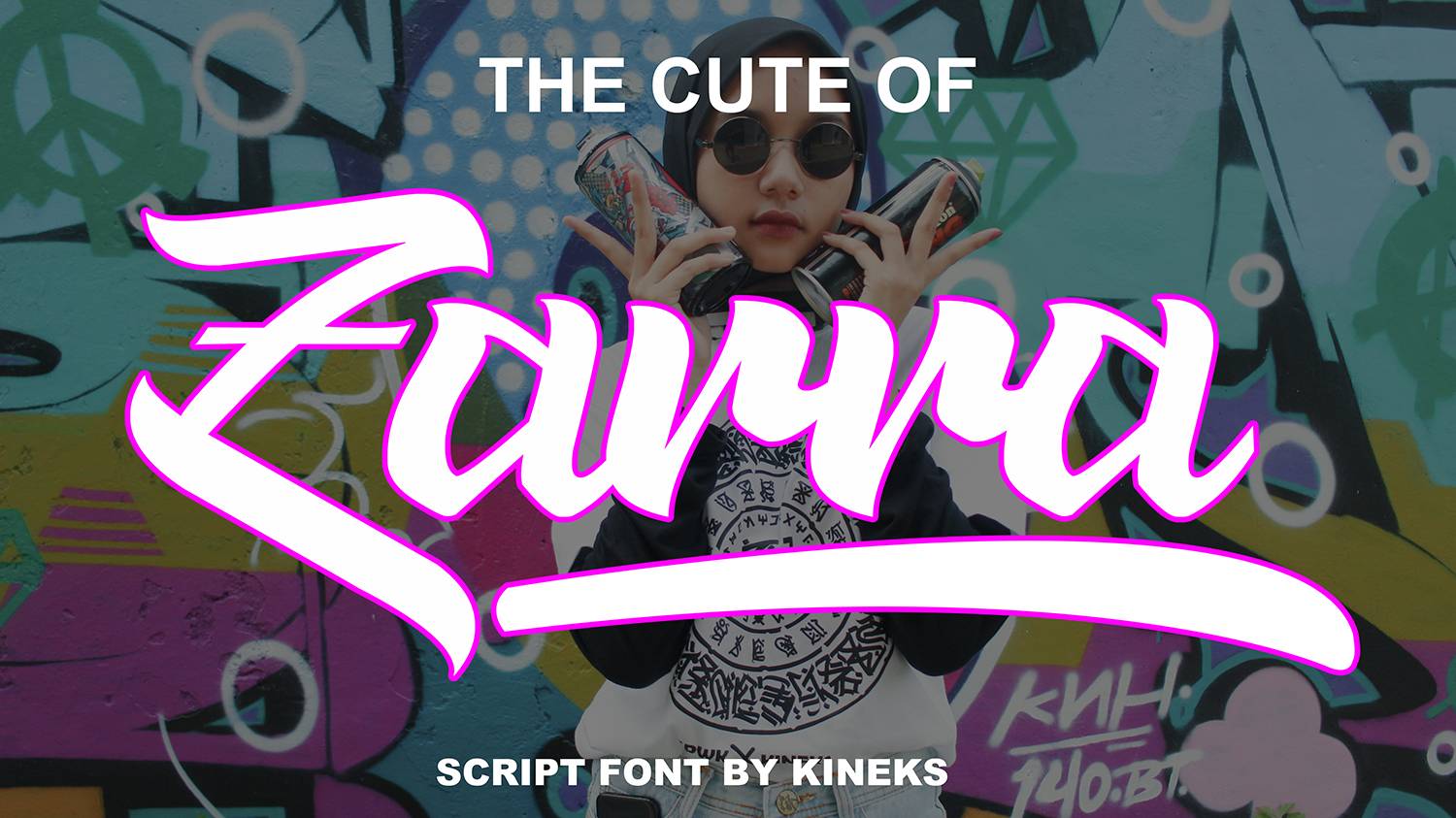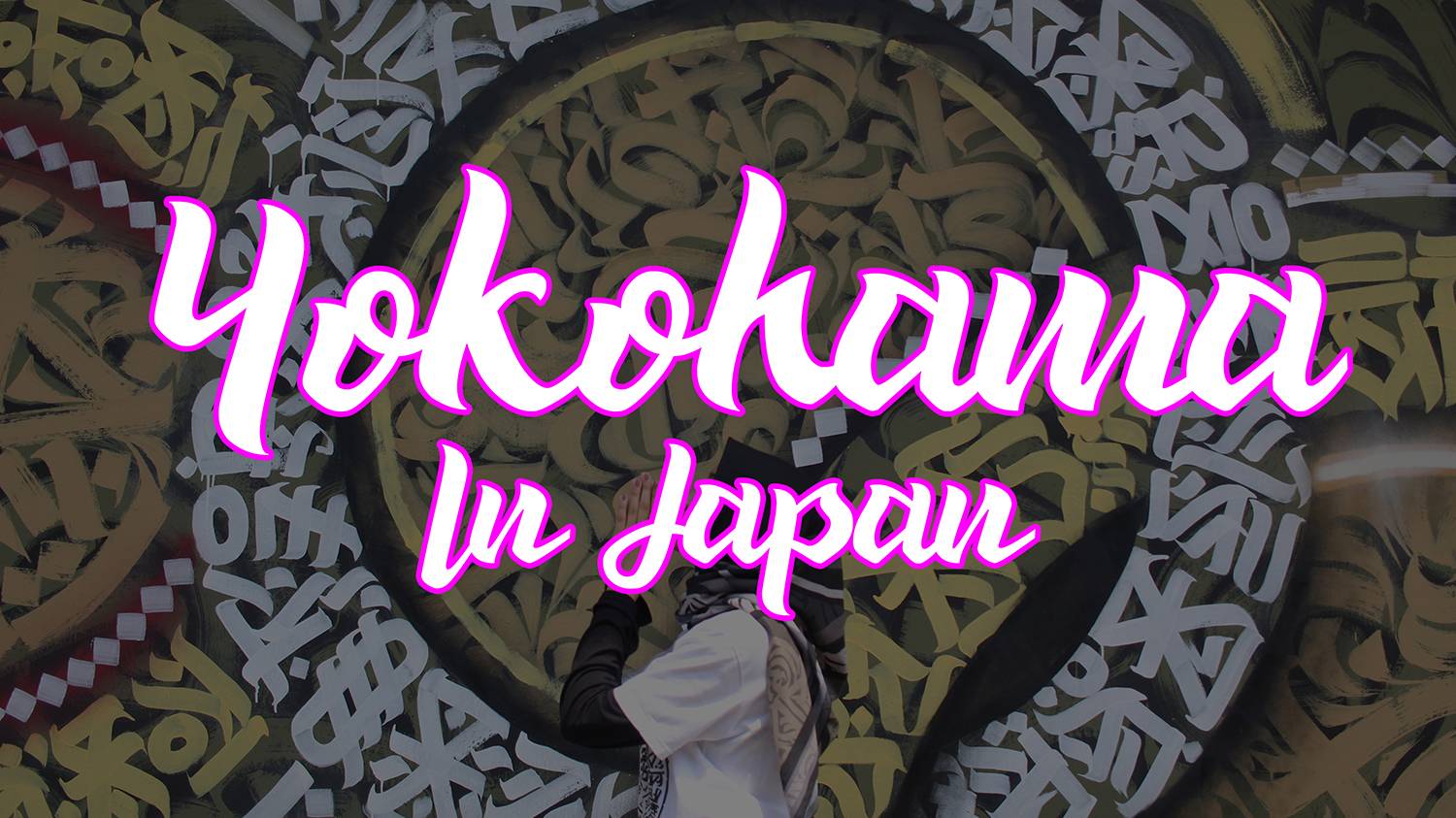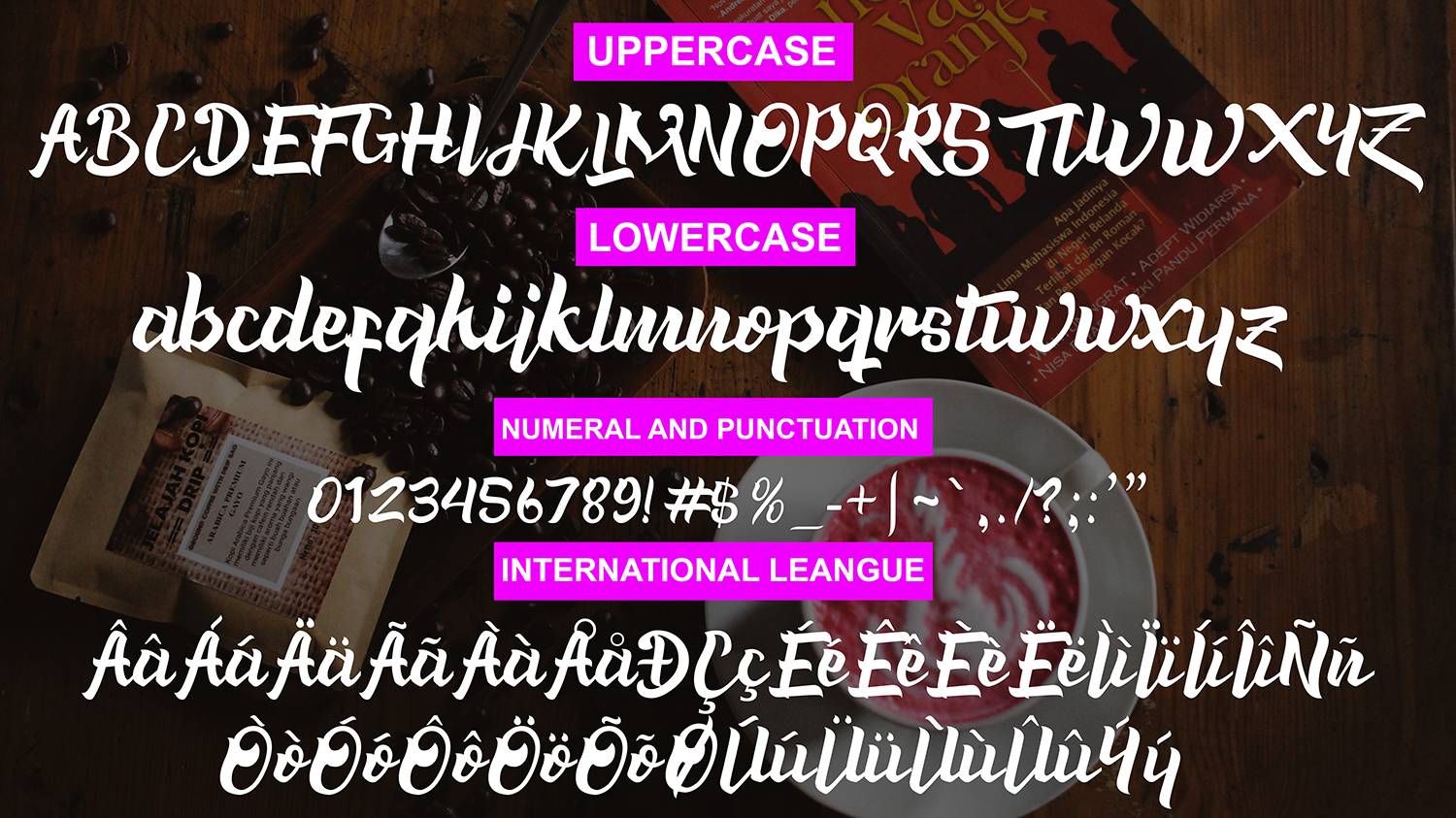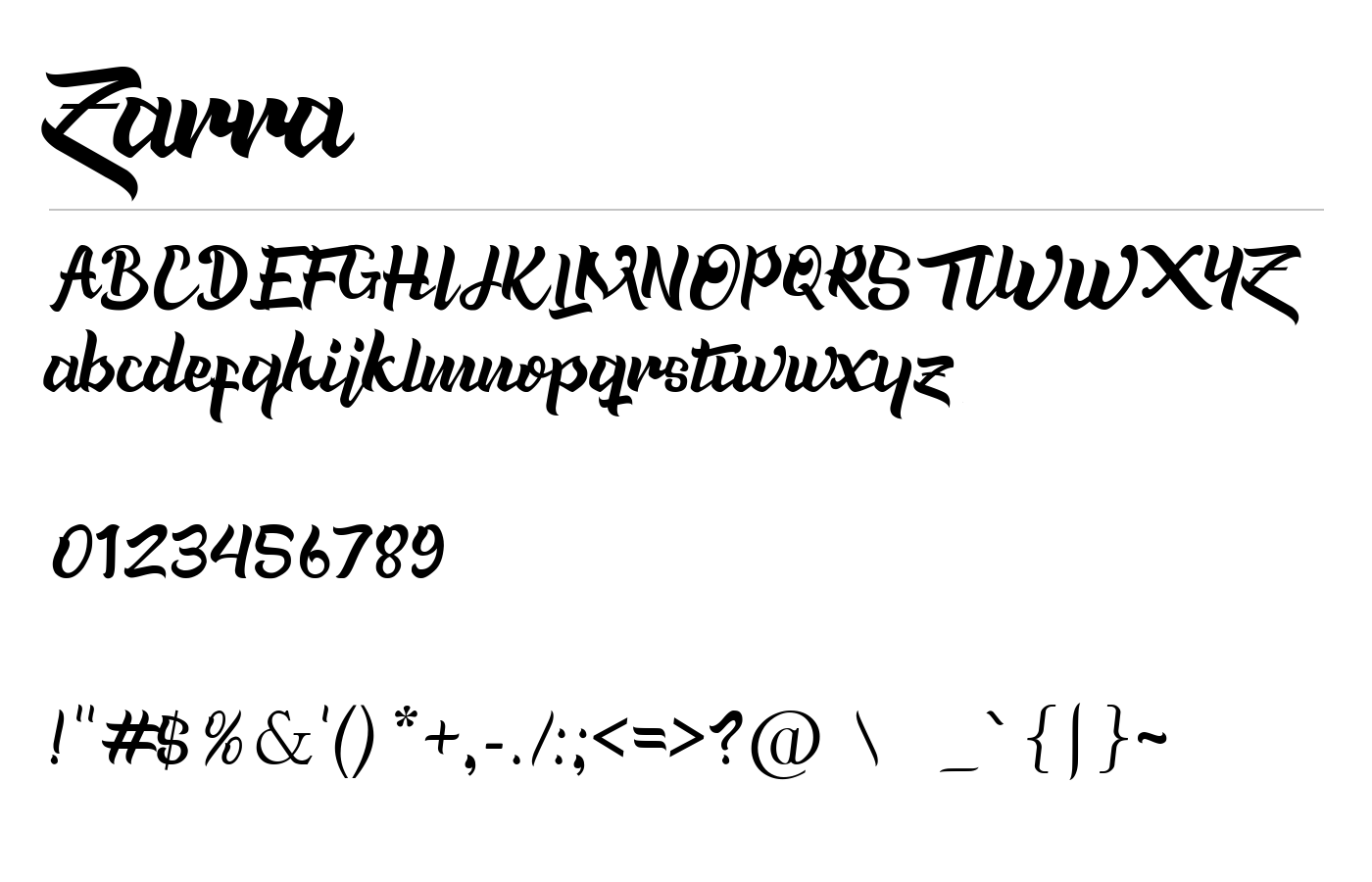
Zarra Script is a bold, dynamic script font characterized by sharp, flowing strokes that blend calligraphic elegance with a modern edge. Its distinctive letterforms feature high contrast and unique swashes, making it ideal for eye-catching headlines, logos, and creative branding that seek a confident and artistic flair. This font works well in fashion, packaging, and editorial design where a bold, stylish personality is desired.
Zarra Script Font
About Zarra Script Font